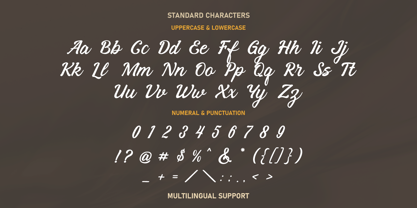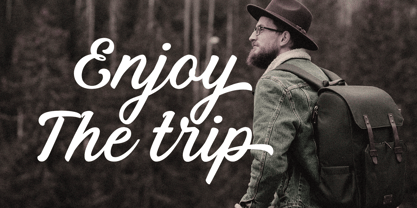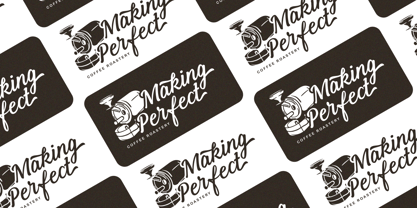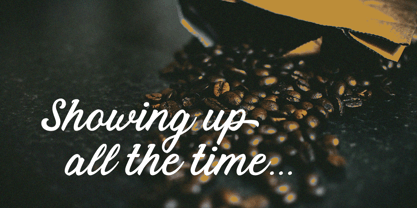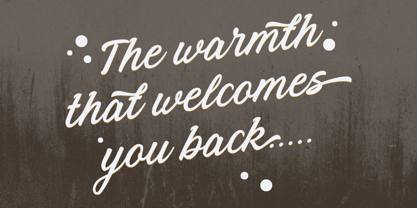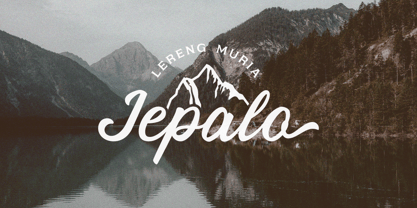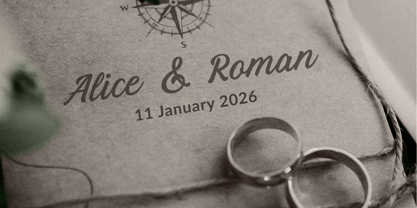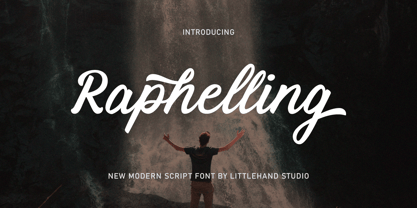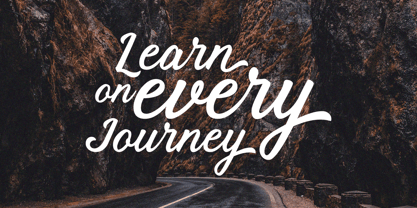
Raphelling
par Littlehand
La famille de polices Raphelling a été conçue par Aryo Pamungkas et publiée par Littlehand. Raphelling contient 1 styles. En savoir plus sur cette famille
Raphelling is a modern script font with smooth strokes and balanced curves that feel clean and natural. the lettering looks handwritten but still polished, giving a modern and flexible look. it’s a great fit for headlines, logos, posters, quotes, packaging text, social media visuals, and branding designs that need a flowing and friendly style. Features : Uppercase & lowercase Numbers and punctuation Alternates & Ligatures Multilingual Support PUA encoded
Concepteurs: Aryo Pamungkas
Fonderie: Littlehand